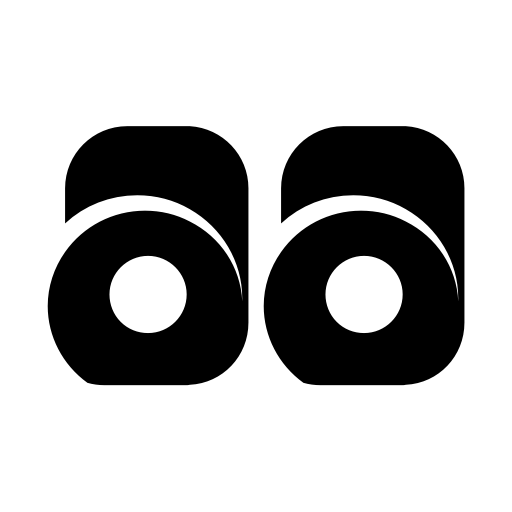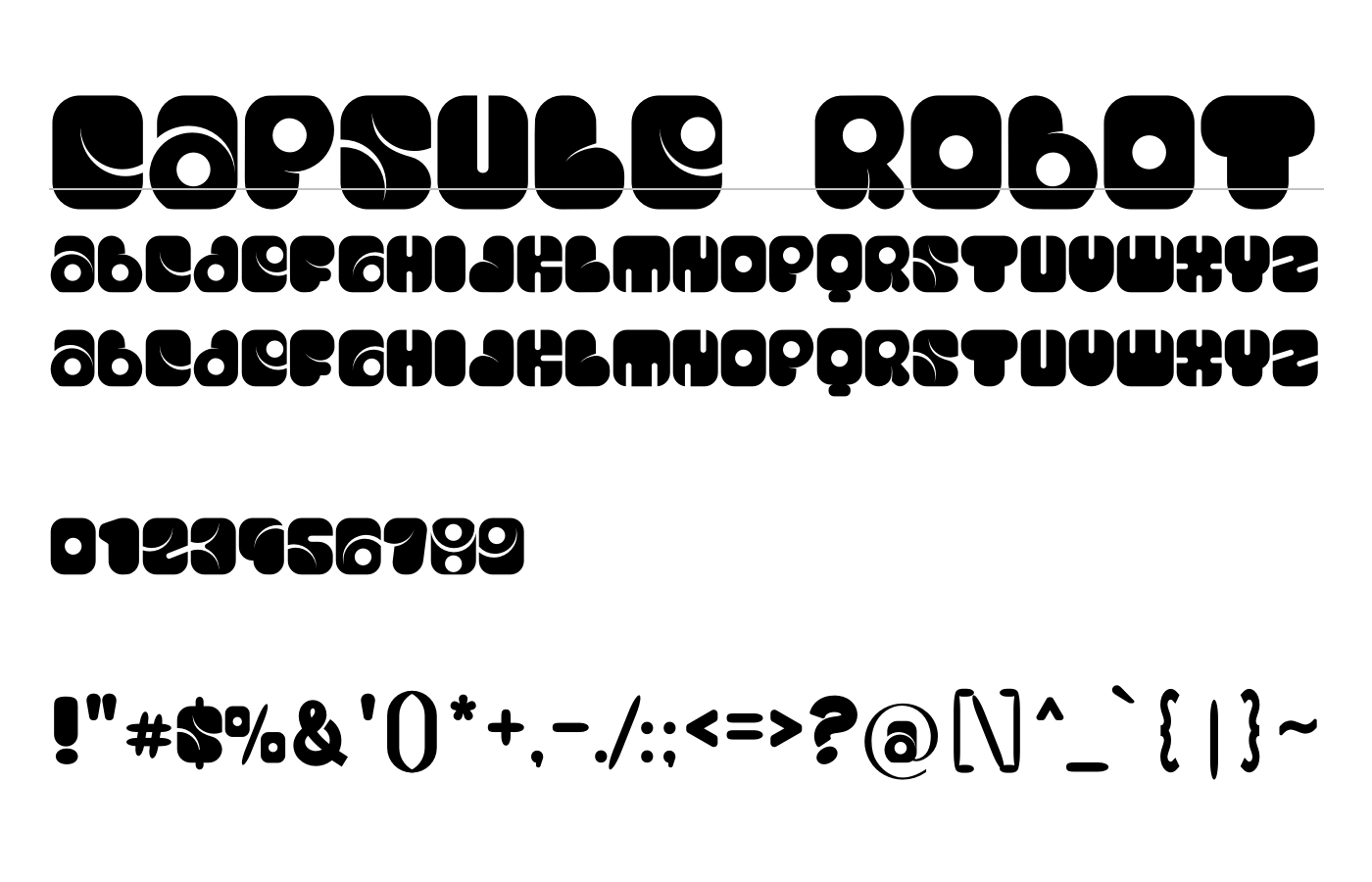
Capsule Robot is a bold, geometric sans serif font with a playful and futuristic vibe. Its heavy weight and rounded shapes with quirky internal cuts create a unique, tech-inspired personality, making it perfect for eye-catching headlines, logos, and creative branding that want to convey innovation and fun. This font works best in large display settings where its distinctive style can stand out without losing clarity.
Capsule Robot Font
About Capsule Robot Font
| Font family | Capsule Robot Font |
| Designer | Kurnia Setyadi |